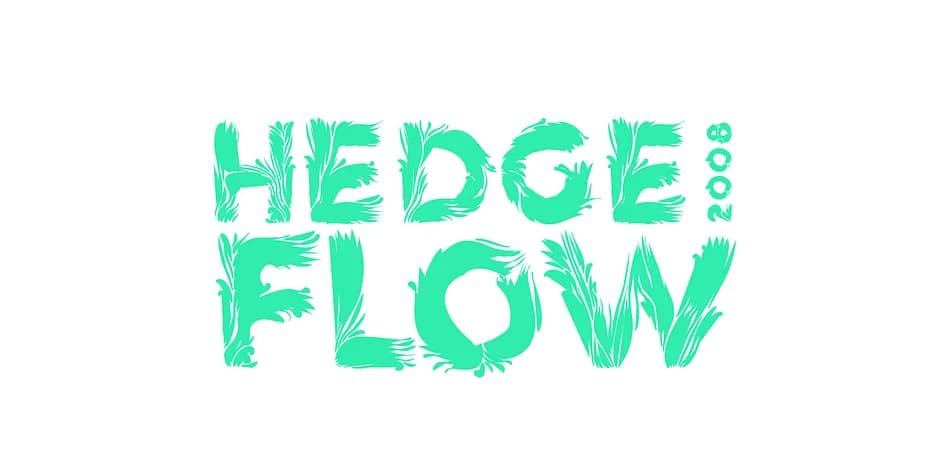
This typeface channels the fluid ease of natural growth, with organic forms that feel genuinely hand-drawn and alive on the page. Hedgeflow, designed by Büro Sequenz, is a display font built on that handcrafted sensibility, making it the right choice for projects demanding authentic botanical character. The hand-drawn quality performs beautifully across several applications: luxury botanical brand identities where heritage and craft signal real value, wedding invitation suites that embrace a garden aesthetic rather than formal stiffness, eco-friendly product labels and packaging where consumers expect genuine storytelling, and social media content around plant care, gardening, and natural living. Each letterform has been refined to hold its personality at display sizes while staying legible for headlines and signage work.
Use Hedgeflow as a statement piece that carries your main headlines, primary branding type, and display work. For body text or secondary information, set it alongside a clean, minimal sans-serif typeface to establish contrast and readability. This pairing keeps each font doing what it does best without visual competition. The result is a typographic system where Hedgeflow's organic motion gets its moment, supported by straightforward, utilitarian letterforms. Find Hedgeflow on Creative Fabrica and start building brands and materials that feel rooted in authenticity.
- Eye-catching, Bold
HEDGEFLOW Font is a display font that shines as a display or heading face. Pair it with a clean sans-serif or serif font for body text — the contrast creates a clear hierarchy while the two styles stay balanced and easy to read.